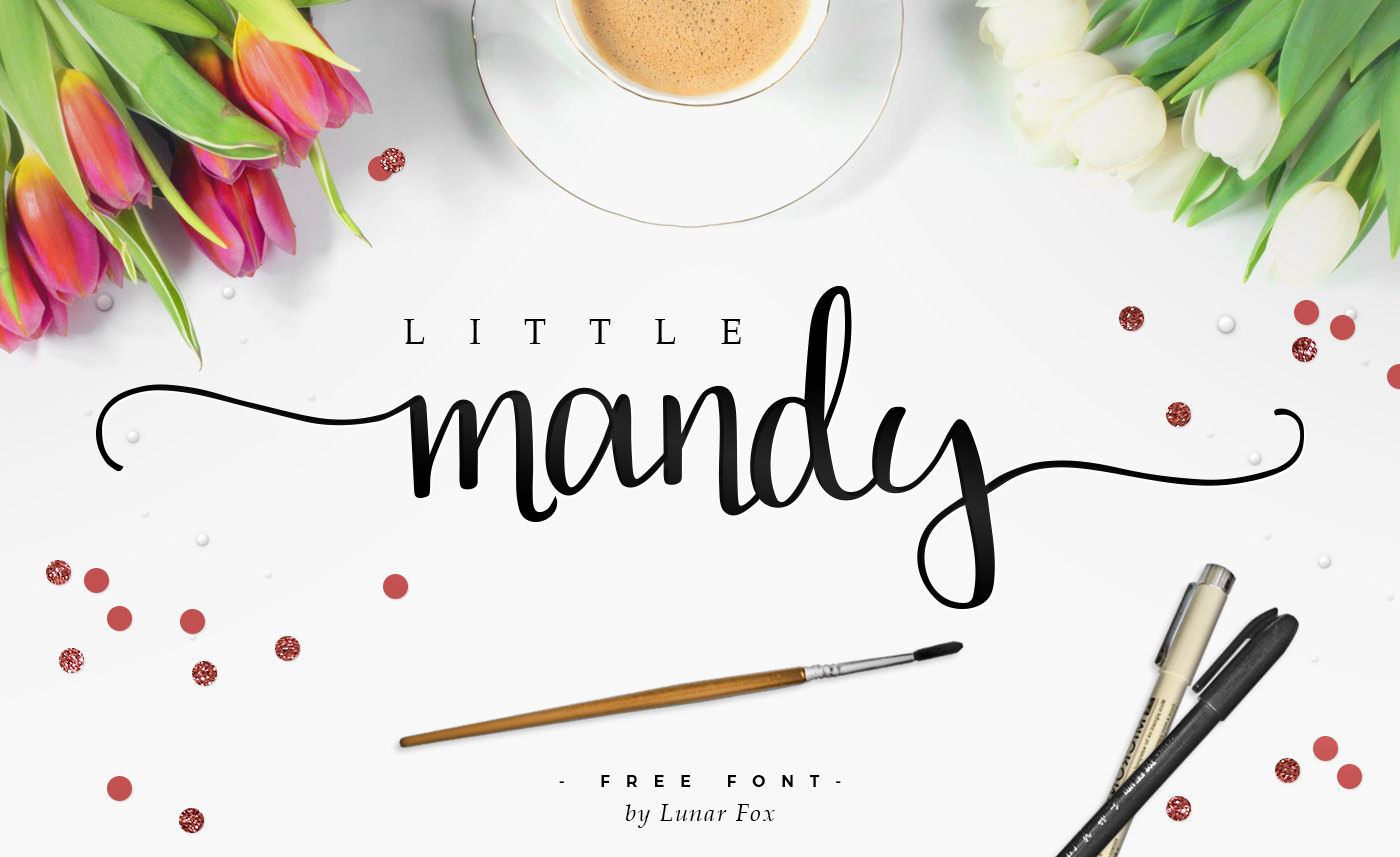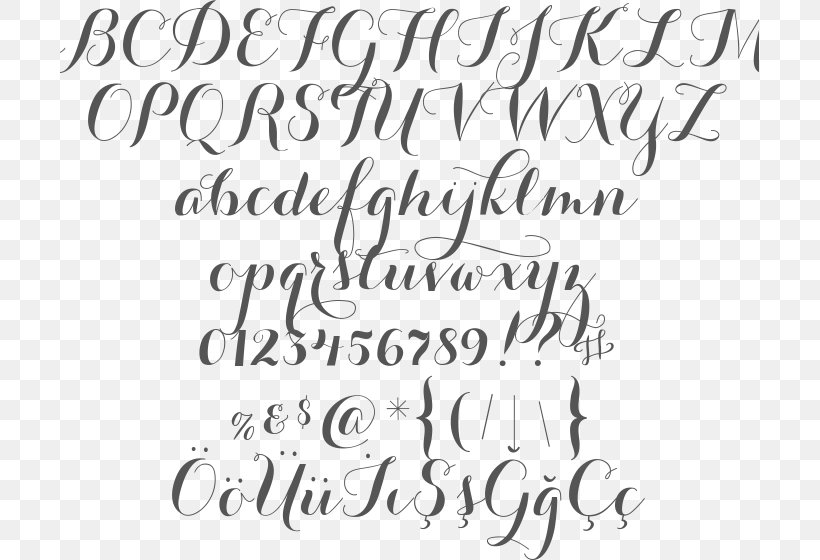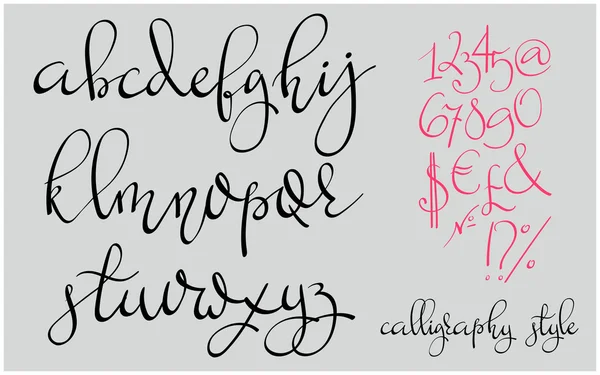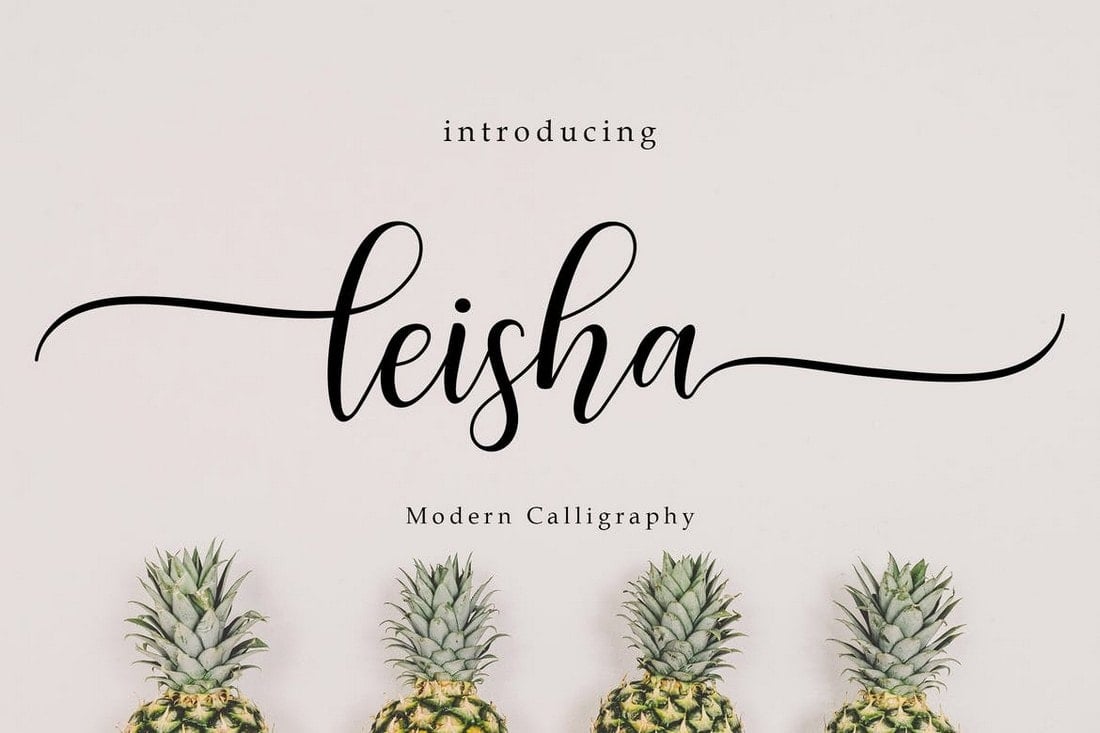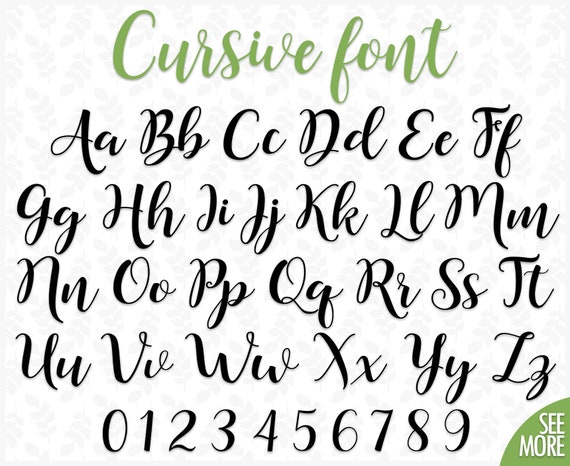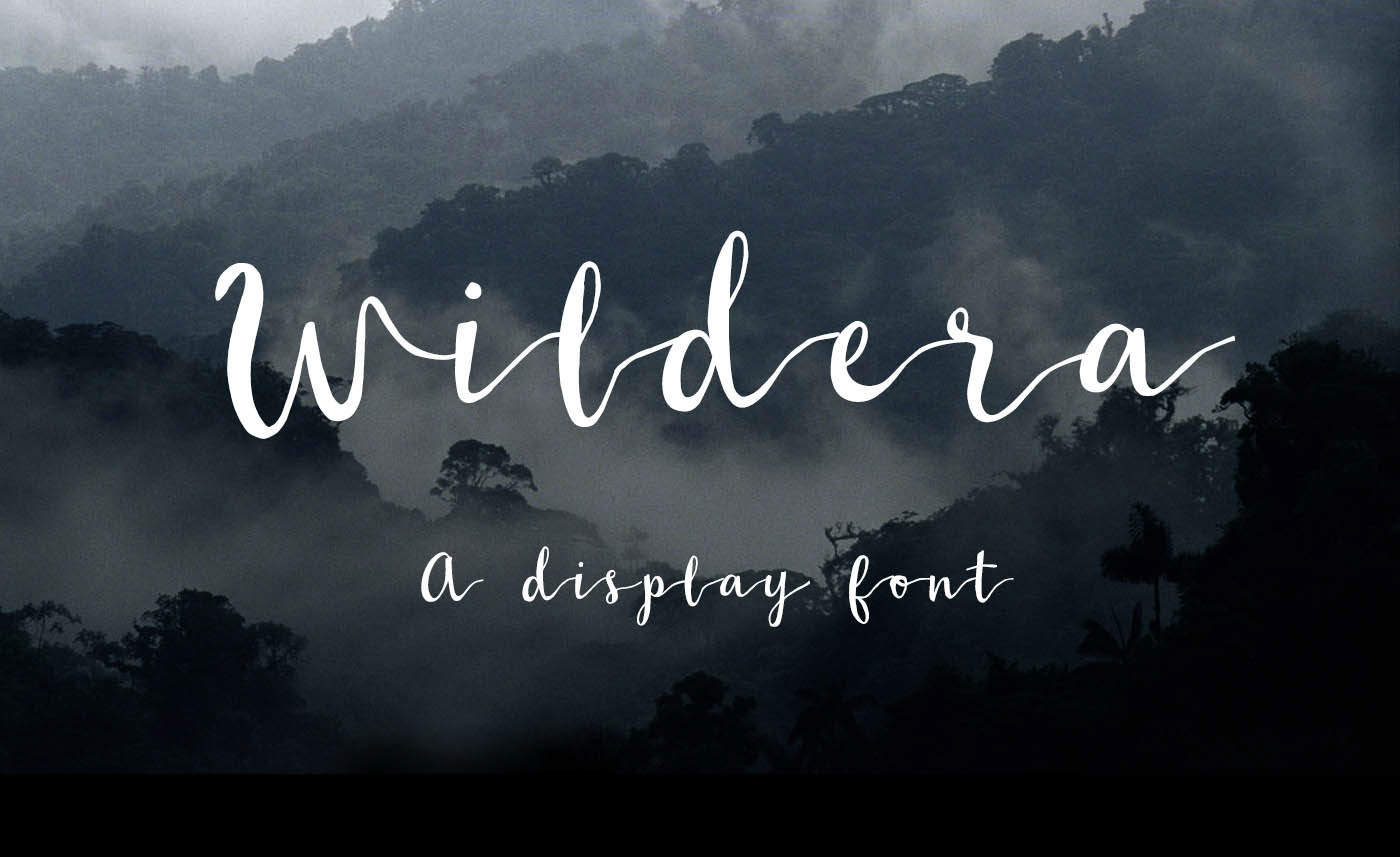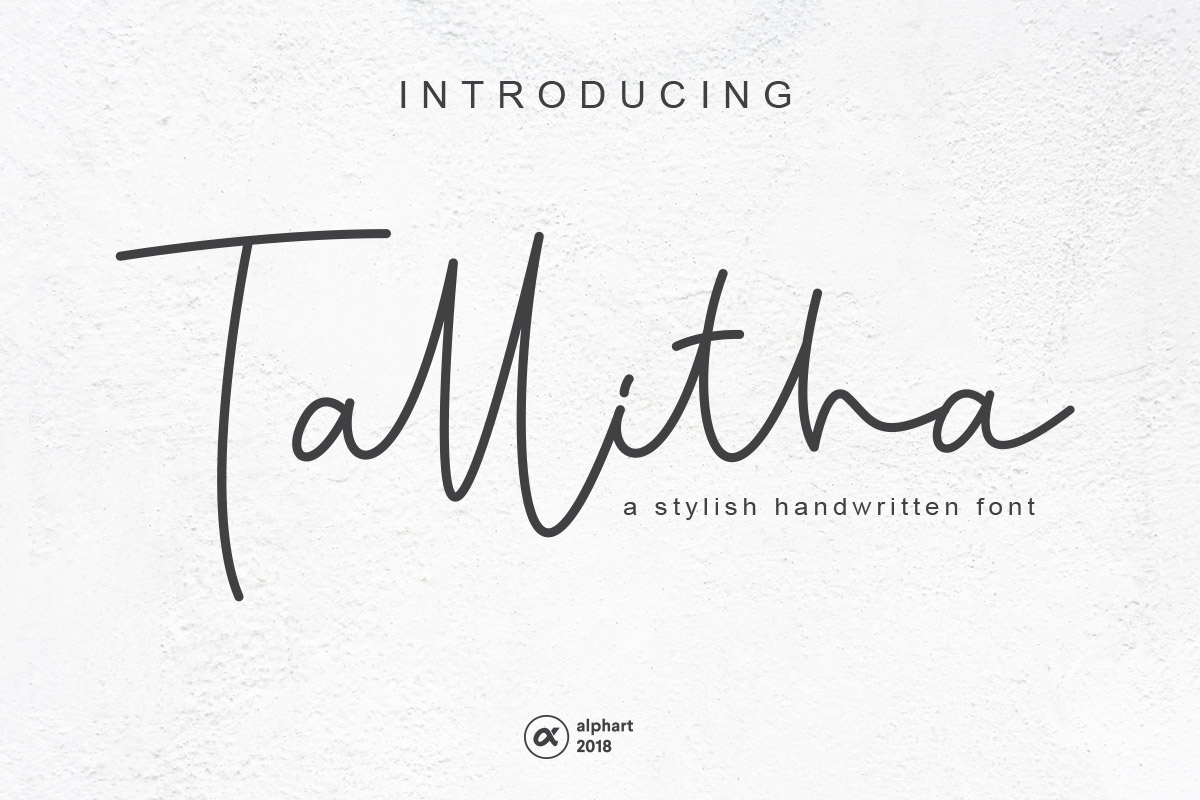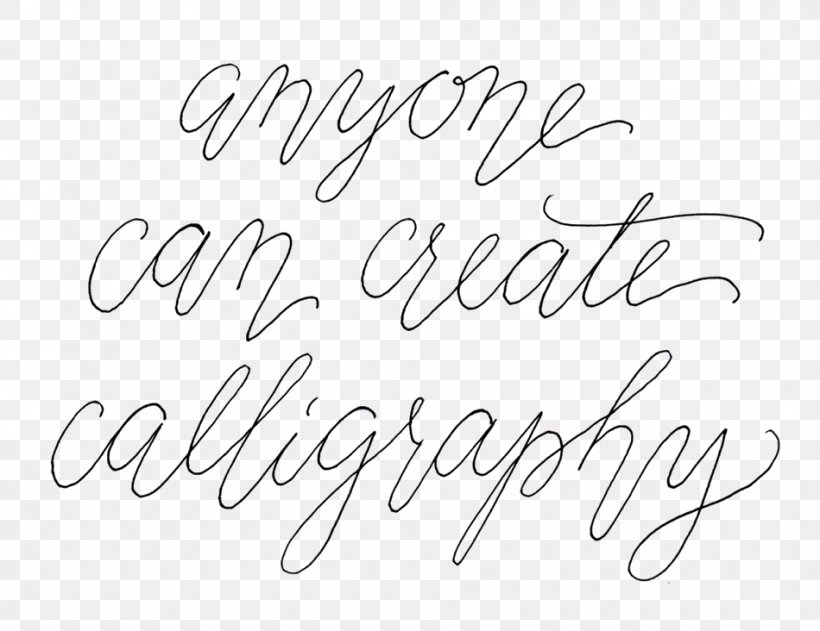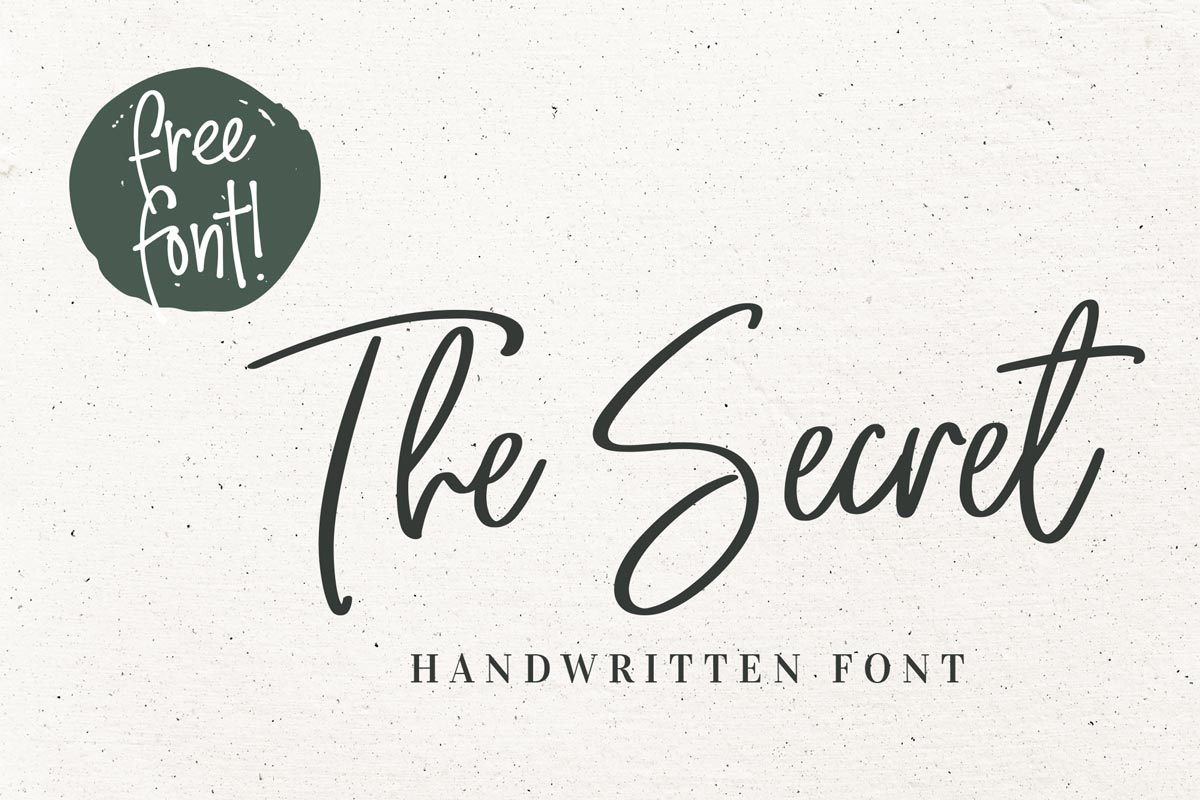
The writing is readable but is usually extravagant and embellished with flourishes. Burgues Script created by Alejandro Paul is. Handwriting Fonts Handwriting fonts are written with a pen pencil or marker.
Writing fonts include both printing and cursive styles and is less artistic than formal calligraphy. Logos greeting cards a package design a brand identity craft design any DIY project book title wedding. Classic brush style calligraphy font with elegant and dramatic Caps.
Calligraphy fonts are widely used in wedding event invitations original logo design religious art films TV etc.